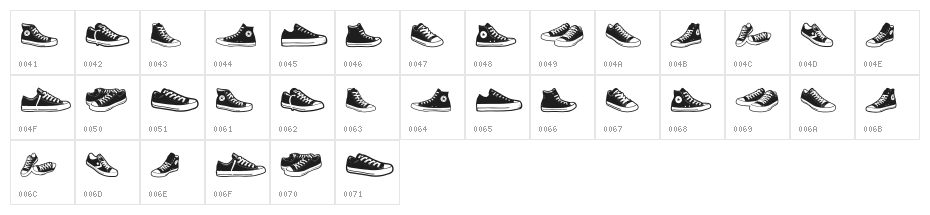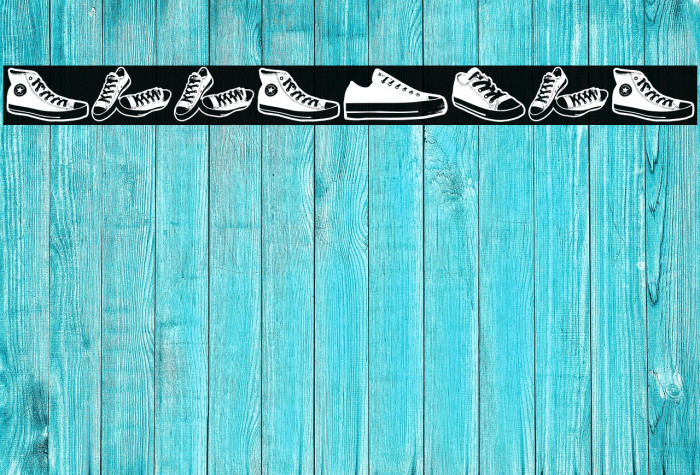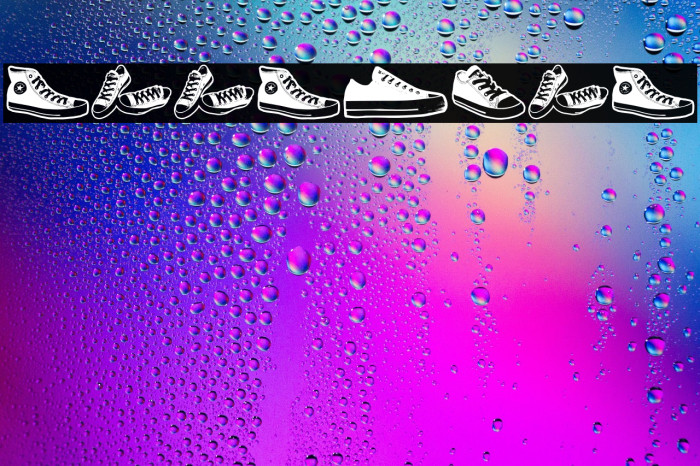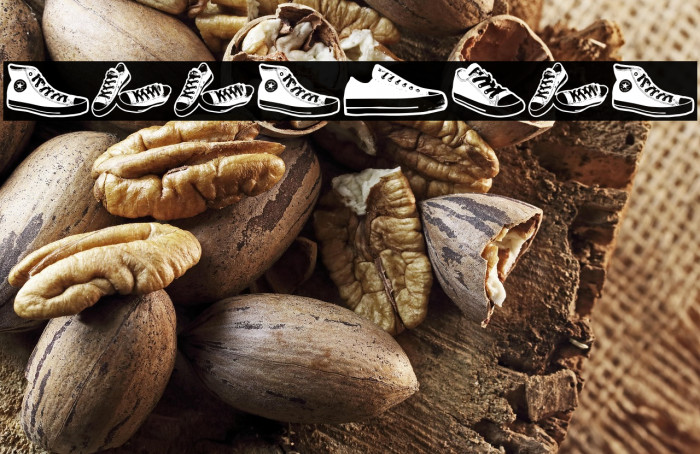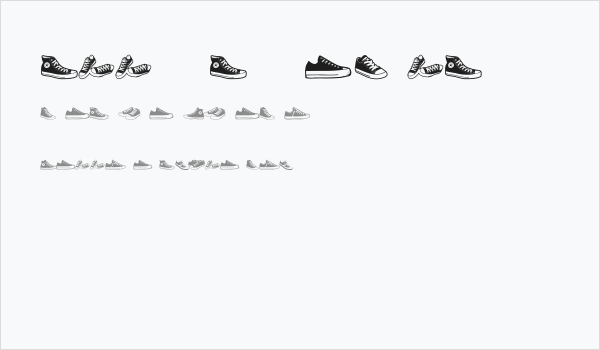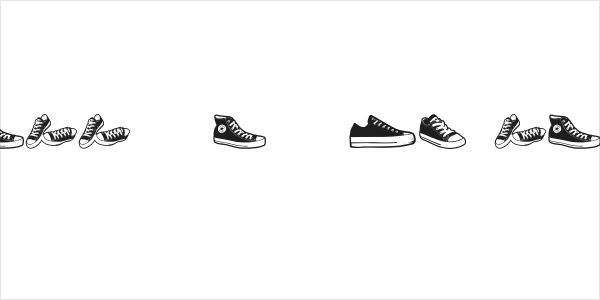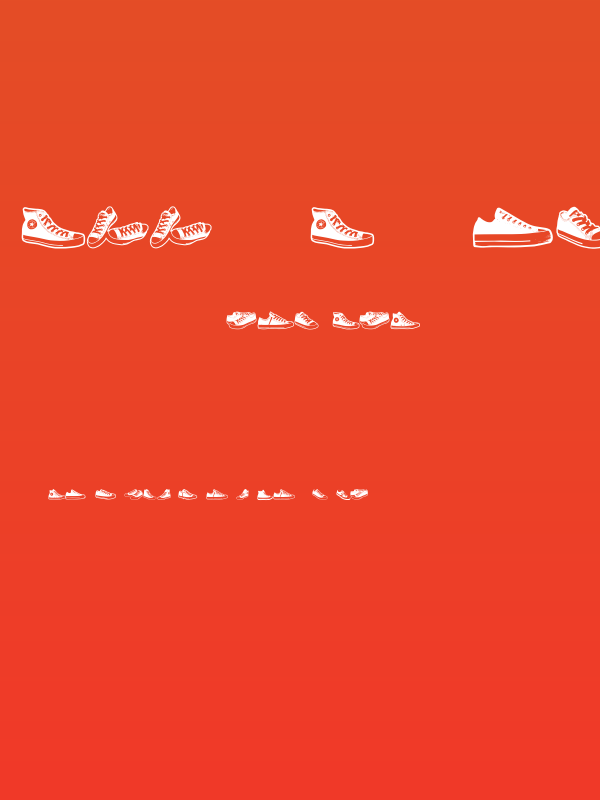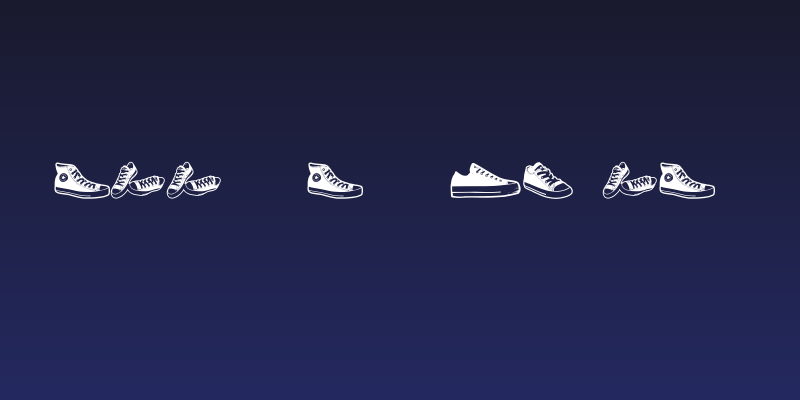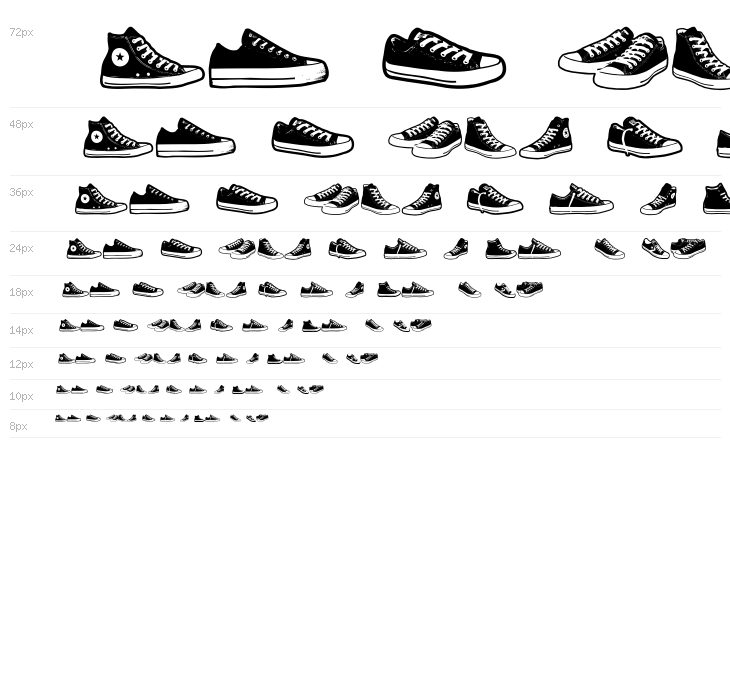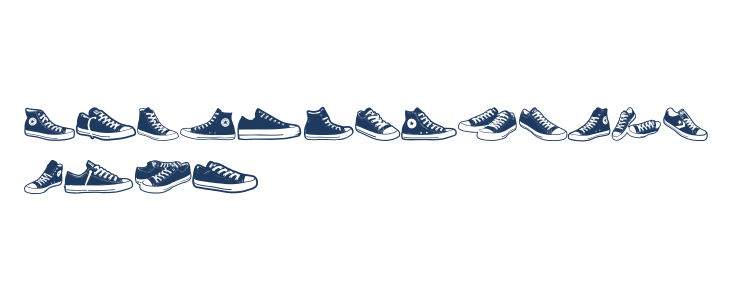
All Star Regular Font
All Star Regular Description
A playful, illustrative font where each character is represented by a hand-drawn sneaker, giving a whimsical and informal appearance. The design is highly decorative and not intended for traditional text readability.
| Overall Style | Decorative, Playful, Whimsical |
| Use Case | Logos, Posters, Themed Headlines, Event Graphics |
| Proposed Projects | ChildrenΓ’β¬β’s posters, playful branding, event flyers, novelty invitations, themed merchandise. |